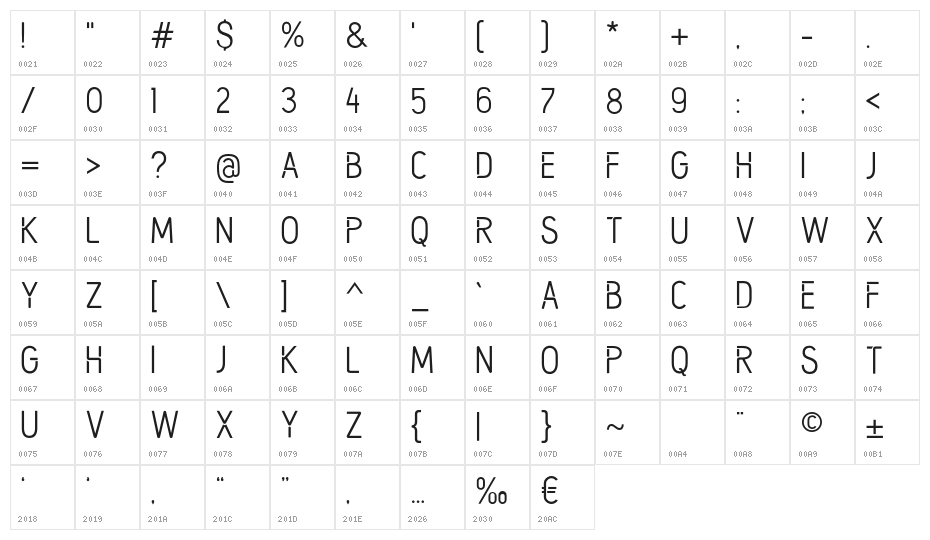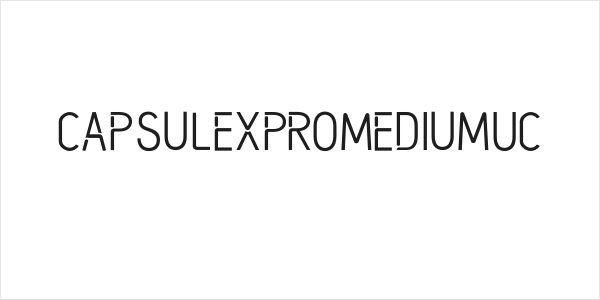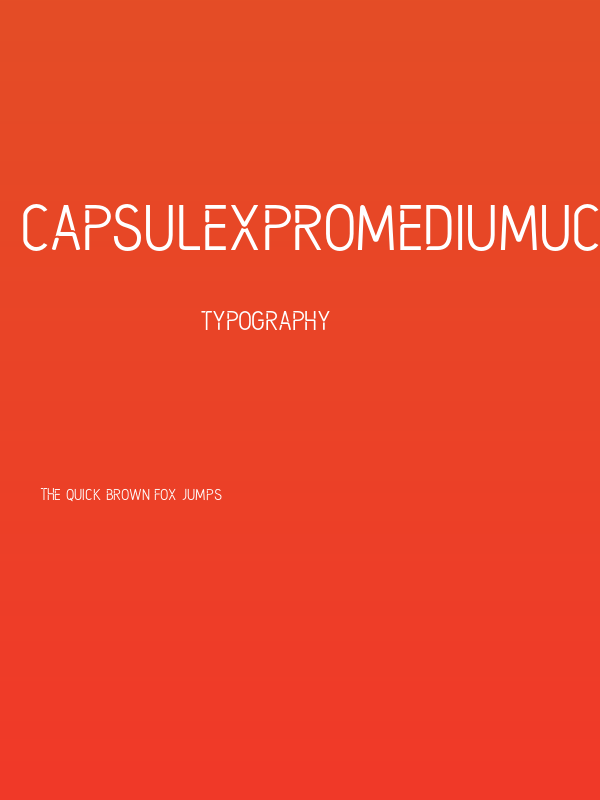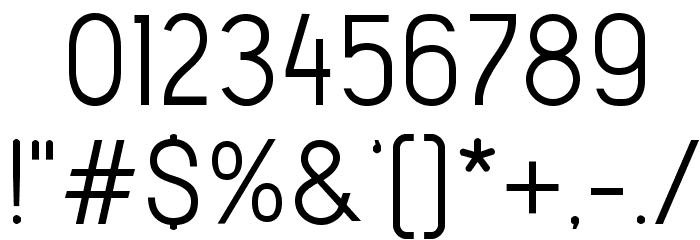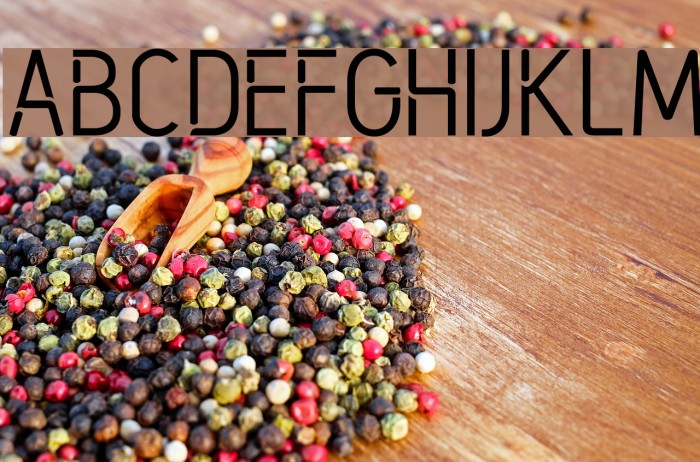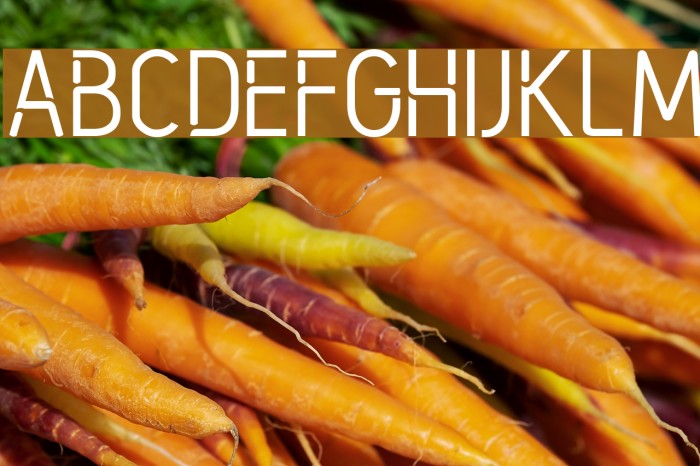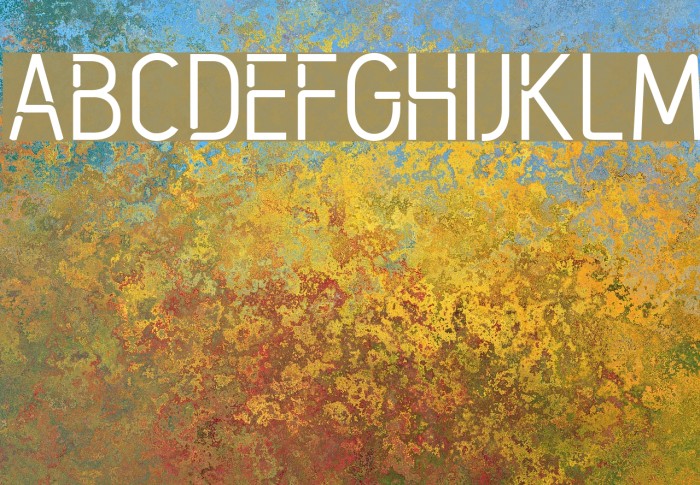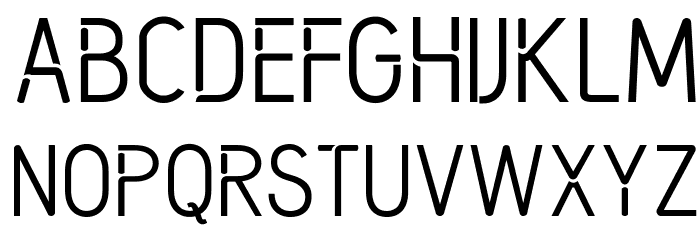
CapsuleXProMediumUC Font
CapsuleXProMediumUC Description
This font features a modern and sleek design with a geometric and minimalistic approach. The characters are constructed with clean lines and a uniform stroke width, giving it a contemporary and professional appearance. The uppercase letters are bold and assertive, while the lowercase letters maintain a consistent style that complements the overall aesthetic. The numerals are clear and legible, making them suitable for various applications. Special characters are included, offering versatility for different design needs. The font's simplicity and clarity make it ideal for modern branding and digital interfaces.
| Proposed Projects | Ideal for branding, digital interfaces, and modern design projects. |